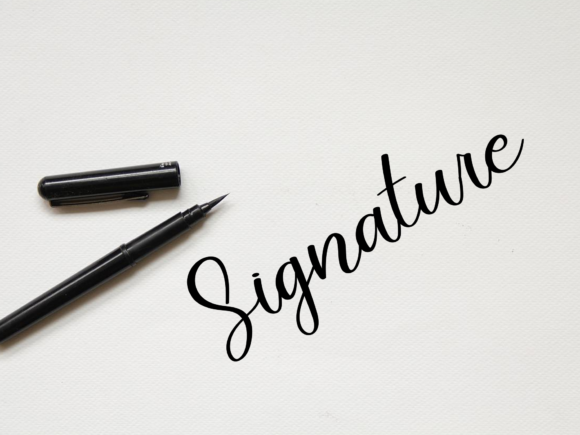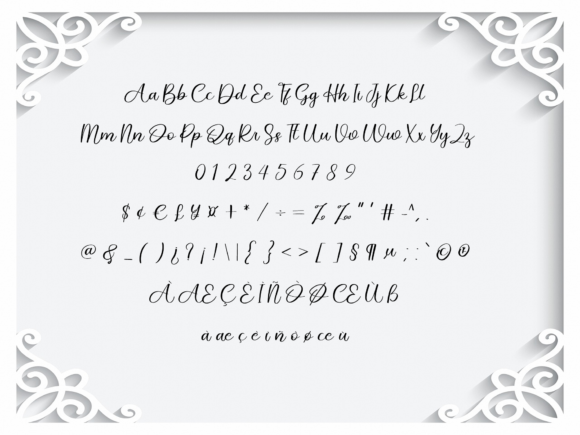
Home Stay Font
db-ku.com - Script & Handwritten -- Home Stay is a delicate handwritten font carefully crafted for a cool and unique design. This font can be used to write letters, invitations, food products, titles and more.